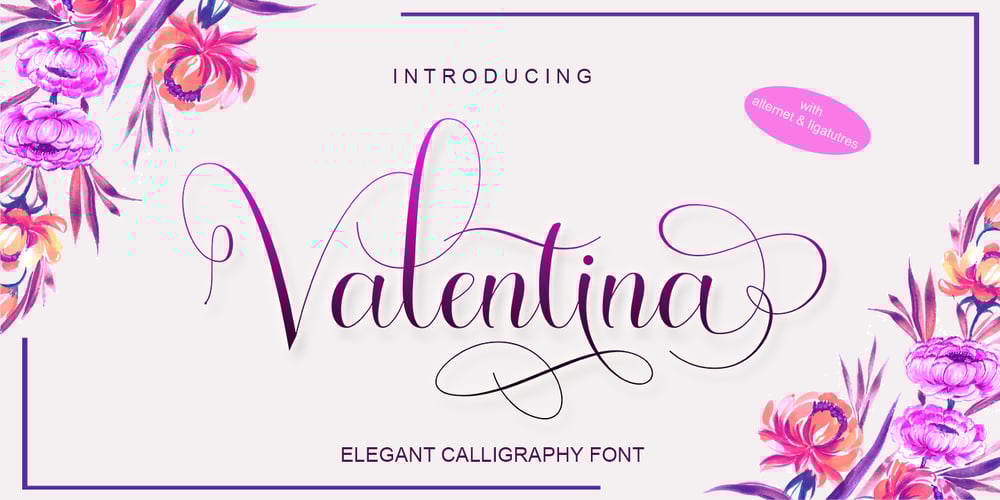
Valentina Font Family was designed by Muhammad Rayyan and published by Slex Studio. Valentina contains 1 styles and family package options. Valentina is an elegant calligraphy font. It looks stunning on wedding invitations, thank you cards, quotes, greeting cards, logos, business cards and every other design which needs a handwritten touch.This font is PUA encoded which means you can access all of the glyphs and swashes with ease!